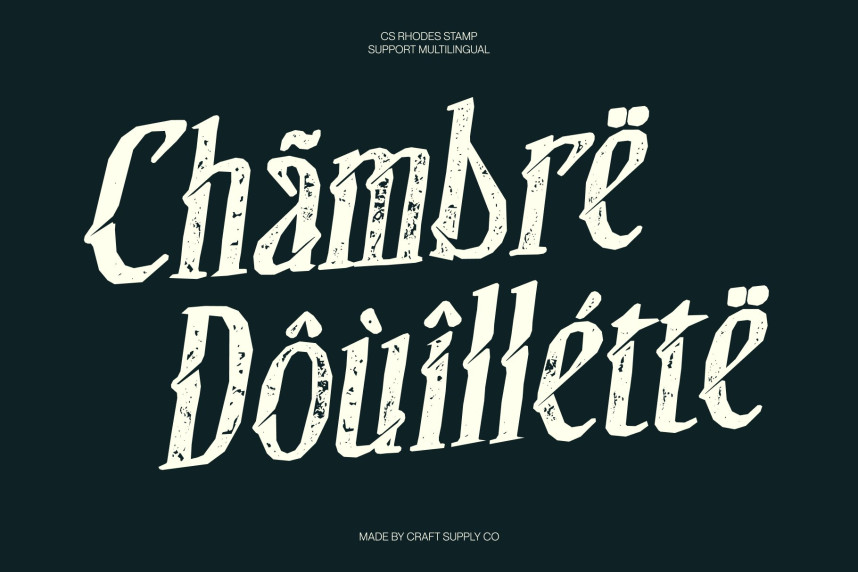
CS Rhodes Stamp Font
CS Rhodes Stamp Font – Modern Serif Font: Where Sophistication Meets Vintage Texture
Luxury Letterforms with Refined Prestige
This is a modern serif font that captures the essence of sophistication and high-end prestige. Defined by its long, graceful serifs and finely detailed construction, it delivers a luxurious typographic voice that feels elegant, confident, and timeless. The addition of a stamp effect introduces a vintage texture that enriches its refined structure with artistic depth and historical character.